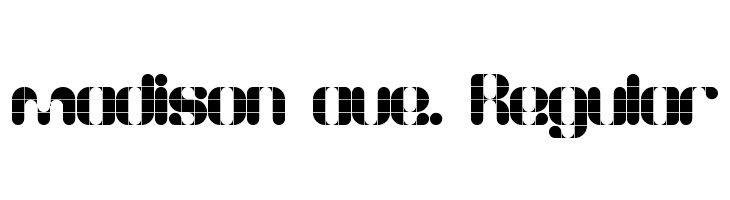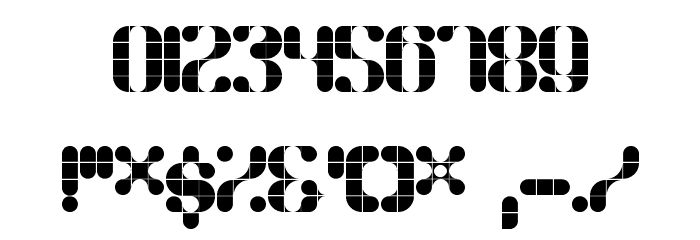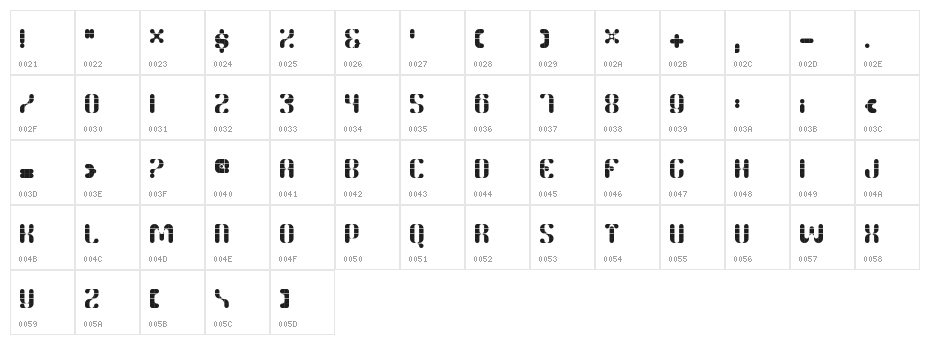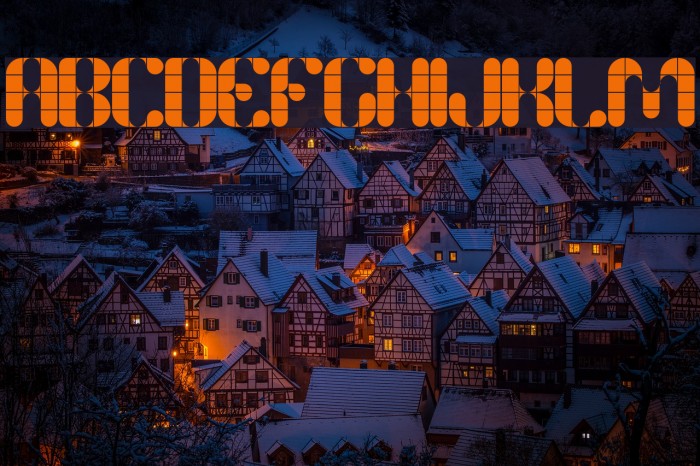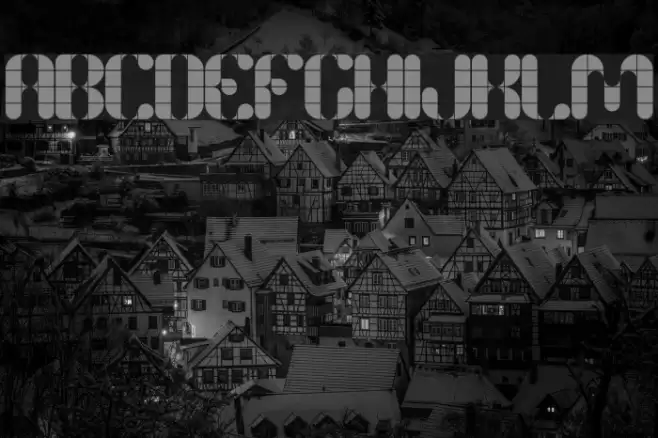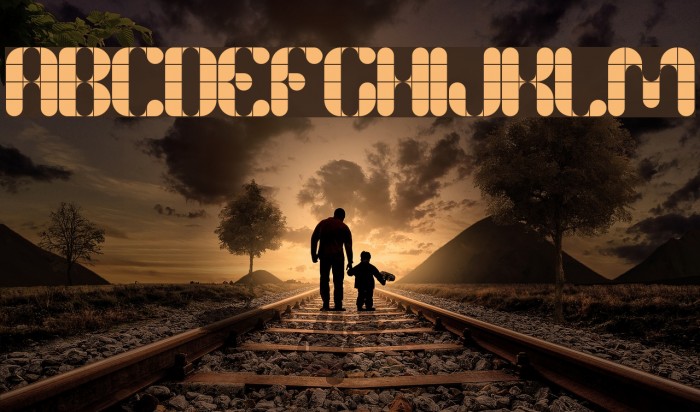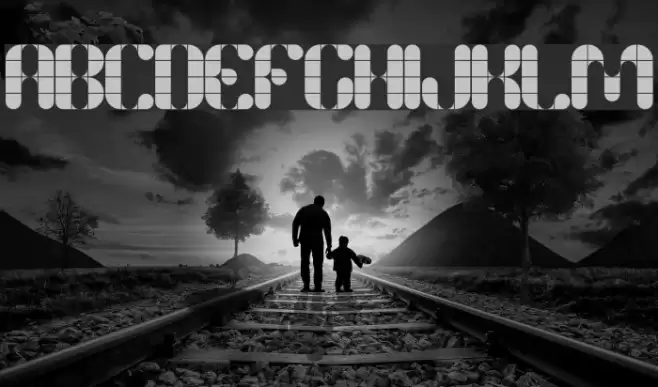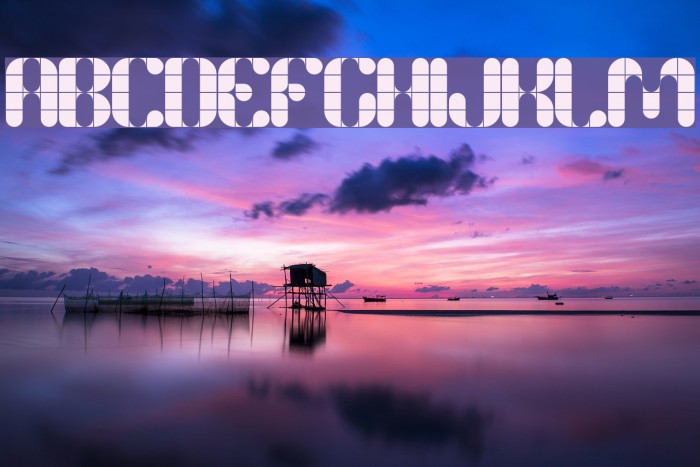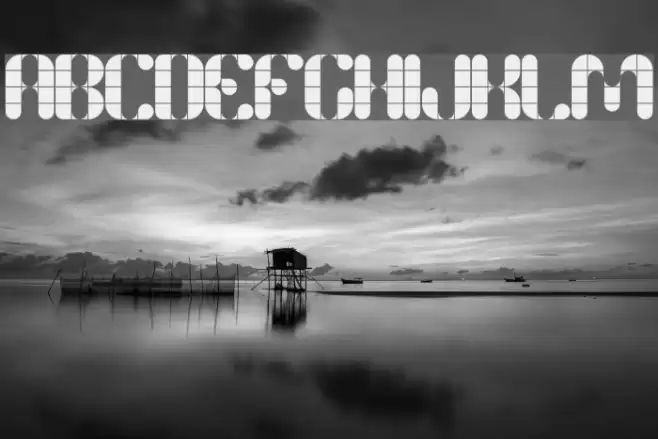
madison ave. Regular Font
madison ave. Regular Description
This font features a unique, geometric design with a modular structure. Each character is composed of circular segments and straight lines, creating a futuristic and digital appearance. The bold, blocky letters have a consistent width, giving the font a monospaced feel, although it is not strictly monospaced. The high contrast between the thick, black segments and the white space within each character enhances readability while maintaining a distinct visual style. The font's playful yet structured design makes it suitable for modern and tech-oriented projects.